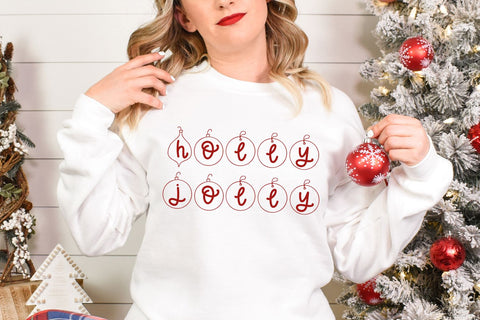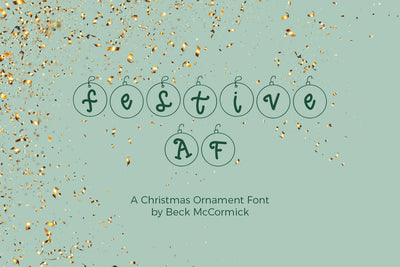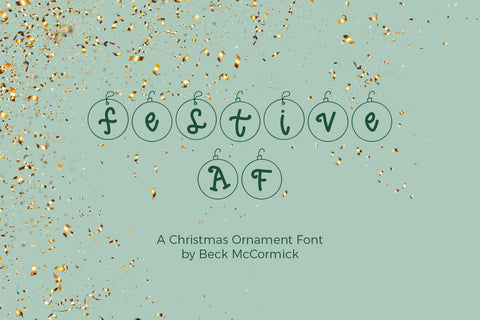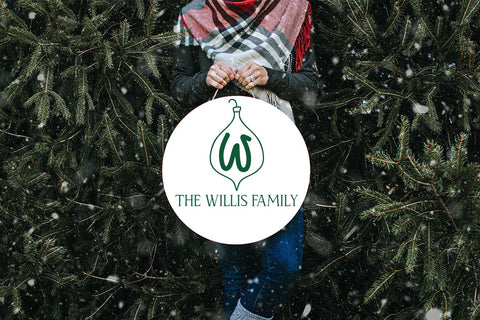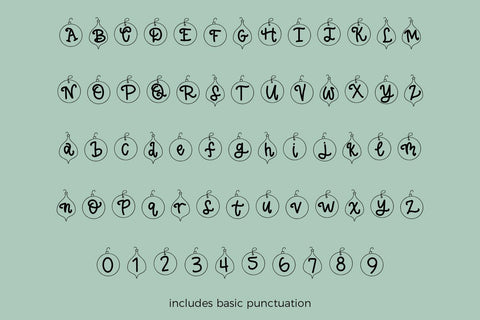
Festive AF Christmas Ornament Font
Say hello to Festive AF, a holiday font that displays adorable letters nested within a variety of ornament shapes. Install this font on your computer, and watch as these cute little ornaments pop up when you type on your keyboard. Make sure to check the last product image for a full look at the characters this font includes.
- upper + lowercase characters A-Z and a-z
- numbers 0-9
- basic punctuation
Festive AF does *not* include accented characters.